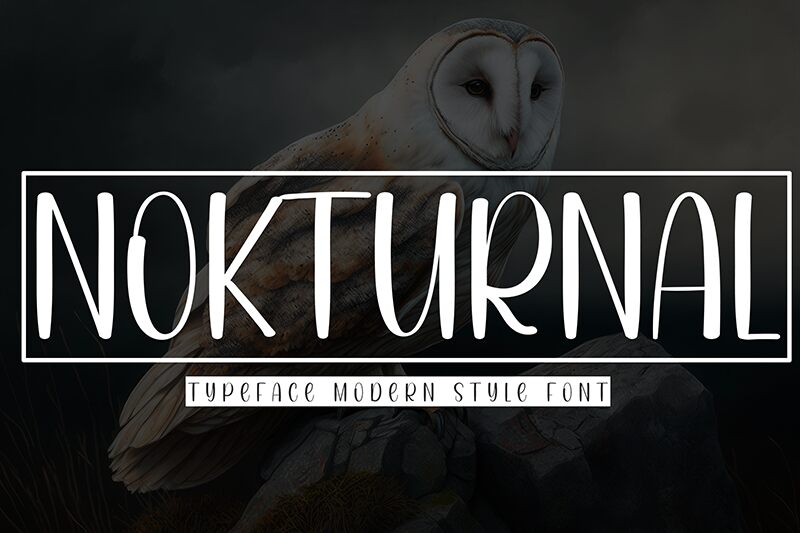
Nokturnal
Typefaces and fonts exist as powerful tools capable of enhancing any design. As such, finding the perfect font will define a project and its theme, setting its mood and aesthetic direction. In addition, fonts are excellent sources of inspiration, with each carrying a specific character, personality, and story to tell. This particular serif typeface is brought to you by Andi Moz and carries many of the aforementioned benefits.
Nokturnal is a free condensed handwritten serif font designed with both personal and commercial projects in mind. It’s perfect for headers, display typography, logos, branding designs, and packaging. With the unique combination of sans and serif letters, this font is also a great choice for apparel designs, labels, advertisements, packaging design, book covers, etc.